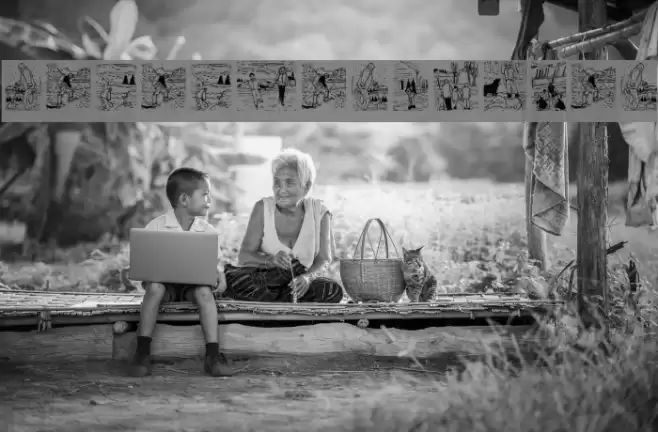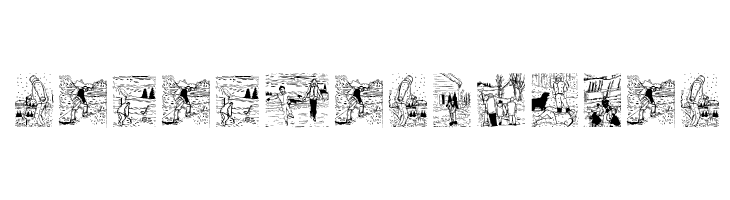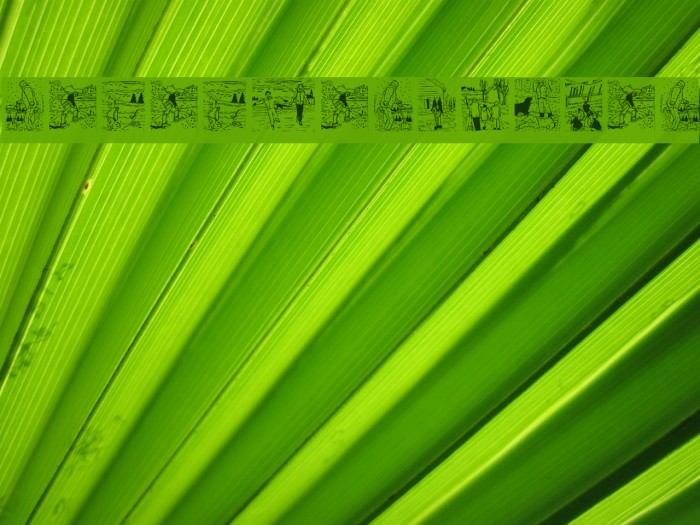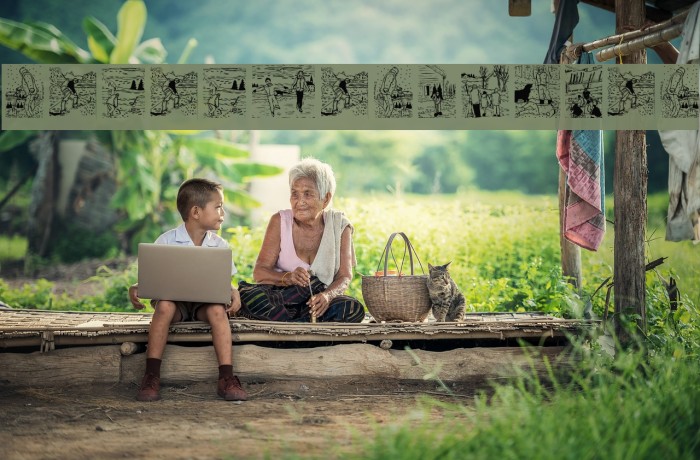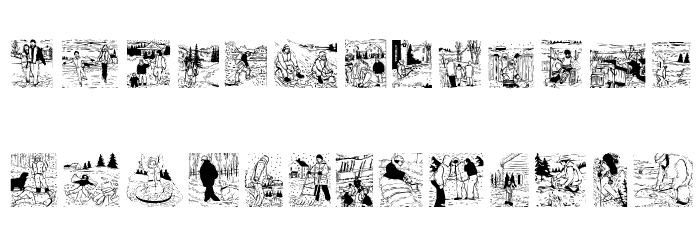
RememberWinter Font
RememberWinter Description
A decorative display font composed of hand-drawn winter-themed illustrations for each character, featuring scenes of people, animals, and activities in snowy landscapes. Each glyph is a unique, detailed black-and-white sketch, making the font highly illustrative and thematic.
A pictorial winter-themed display font with hand-drawn illustrations for each character from Uncategorized fonts.
- Proposed Projects: Holiday cards, seasonal posters, children's books, winter event invitations, decorative headlines.
- Overall Style: Decorative, Hand-drawn, Thematic
- Use Case: Logos, Headlines, Posters, Themed graphics